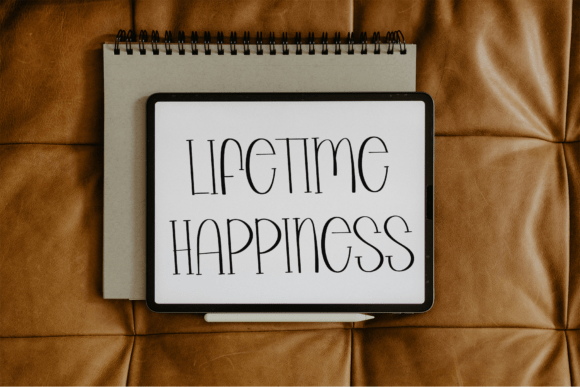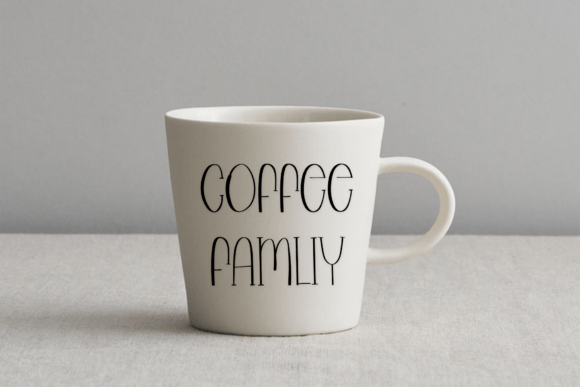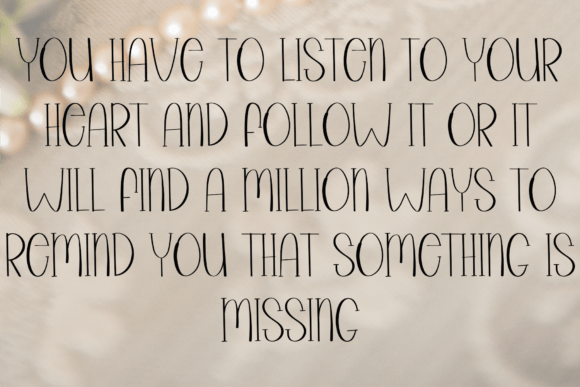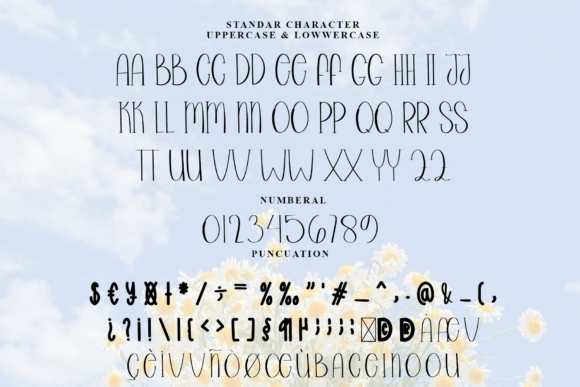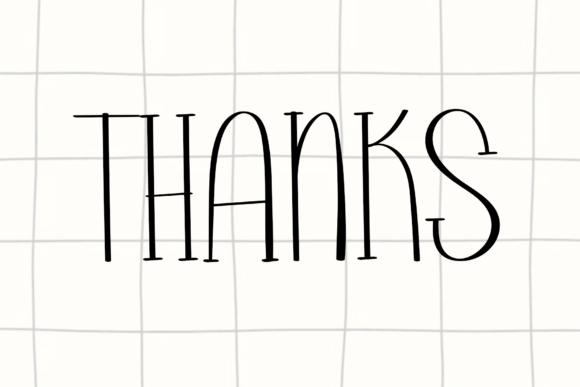
Introducing Grils Sister Font: The Minimalist’s Dream Come True
Are you a designer or crafter looking for the perfect font to elevate your creative projects? Look no further than Grils Sister Font, a minimal and neat font that is sure to make your designs stand out. With its clean lines and simple aesthetic, Grils Sister is the perfect addition to any project, from branding and advertising to crafting and DIY tutorials.
The Versatility of Grils Sister Font
One of the best things about Grils Sister Font is its incredible versatility. This font can easily be matched to an incredibly large set of projects, making it a go-to choice for designers and crafters who need a reliable and stylish font. Whether you’re working on a modern and sleek design or a more rustic and vintage-inspired project, Grils Sister Font is sure to fit the bill.
What Makes Grils Sister Font So Special?
So, what sets Grils Sister Font apart from other fonts on the market? For starters, its minimalist design makes it incredibly easy to read and understand, even at small sizes. This makes it perfect for use in body text, captions, and other applications where legibility is key. Additionally, the font’s clean lines and simple aesthetic make it incredibly versatile, allowing it to be used in a wide range of design contexts.
How to Use Grils Sister Font in Your Designs
Using Grils Sister Font in your designs is easy. Here are a few tips to get you started:
- Pair Grils Sister Font with bold graphics or images to create a striking contrast.
- Use Grils Sister Font as a body font for blogs, articles, and other written content.
- Combine Grils Sister Font with other fonts to create a unique and eye-catching typography.
The Benefits of Using Grils Sister Font
There are many benefits to using Grils Sister Font in your designs. Here are just a few:
- Legibility: Grils Sister Font is incredibly easy to read, even at small sizes.
- Versatility: Grils Sister Font can be used in a wide range of design contexts, from modern and sleek to rustic and vintage-inspired.
- Style: Grils Sister Font has a clean and simple aesthetic that is sure to elevate your designs.
In conclusion, Grils Sister Font is a minimal and neat font that is sure to make your designs stand out. With its clean lines, simple aesthetic, and incredible versatility, Grils Sister Font is the perfect addition to any project. Whether you’re a designer or crafter, Grils Sister Font is a great choice for anyone looking for a reliable and stylish font. So why wait? Download Grils Sister Font today and see how it can elevate your creative projects!
FAQs About Grils Sister Font
Here are a few frequently asked questions about Grils Sister Font:
- What is Grils Sister Font?
- Grils Sister Font is a minimal and neat font that is perfect for use in a wide range of design contexts.
- Is Grils Sister Font easy to read?
- Yes, Grils Sister Font is incredibly easy to read, even at small sizes.